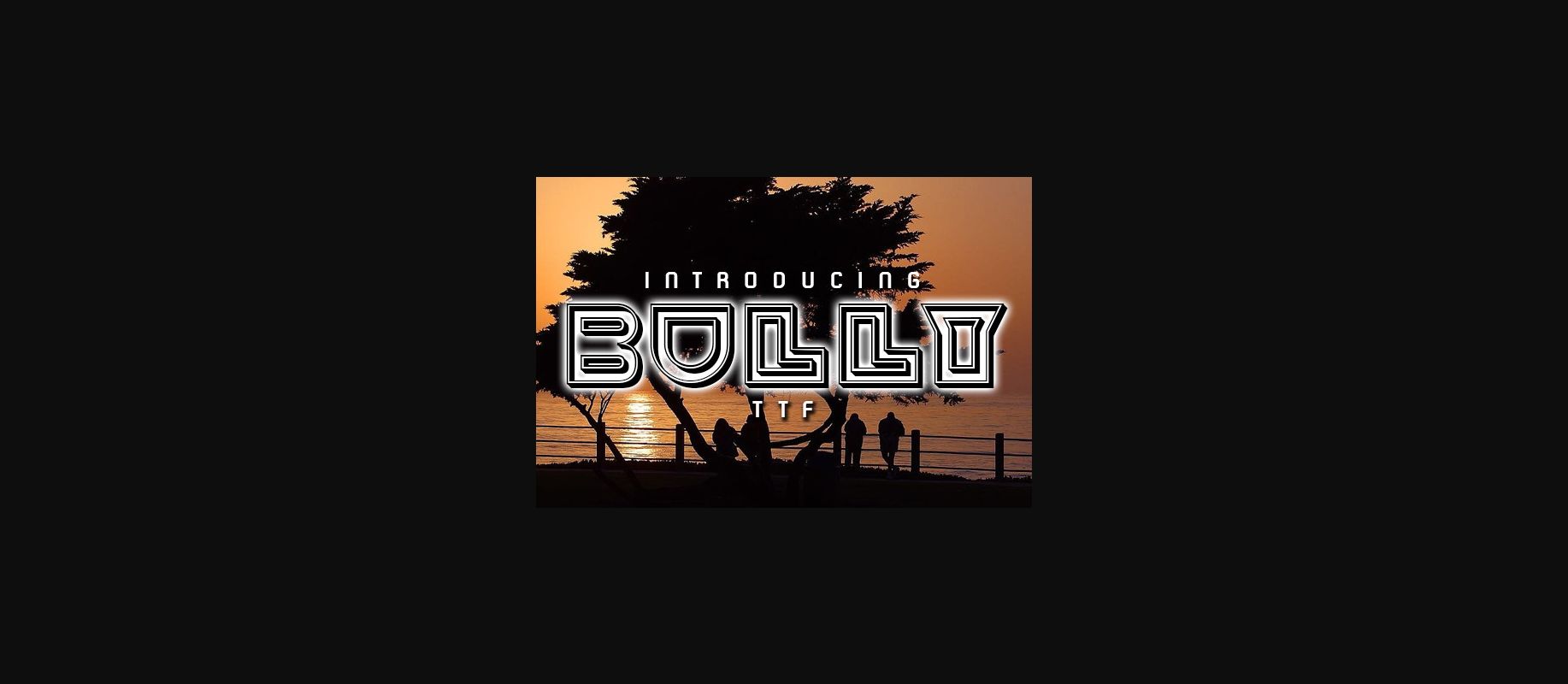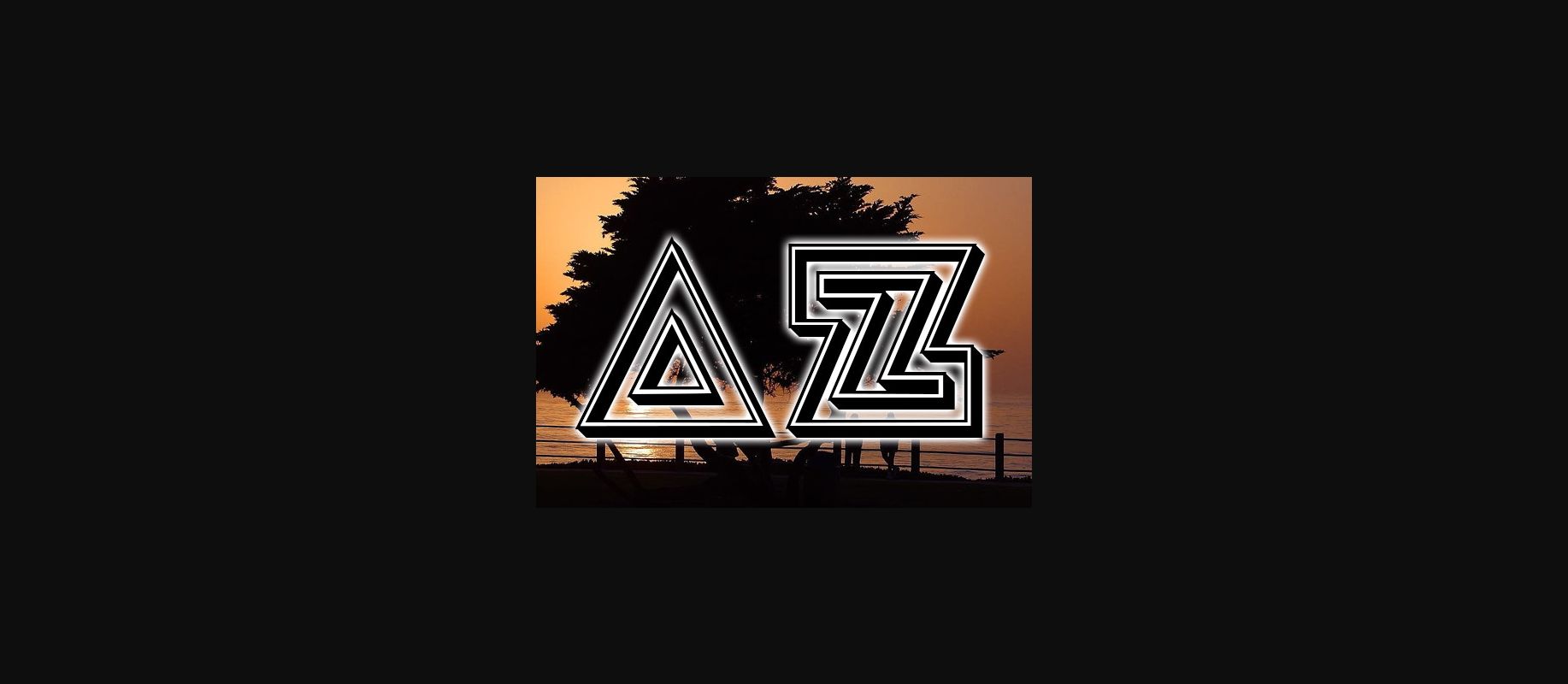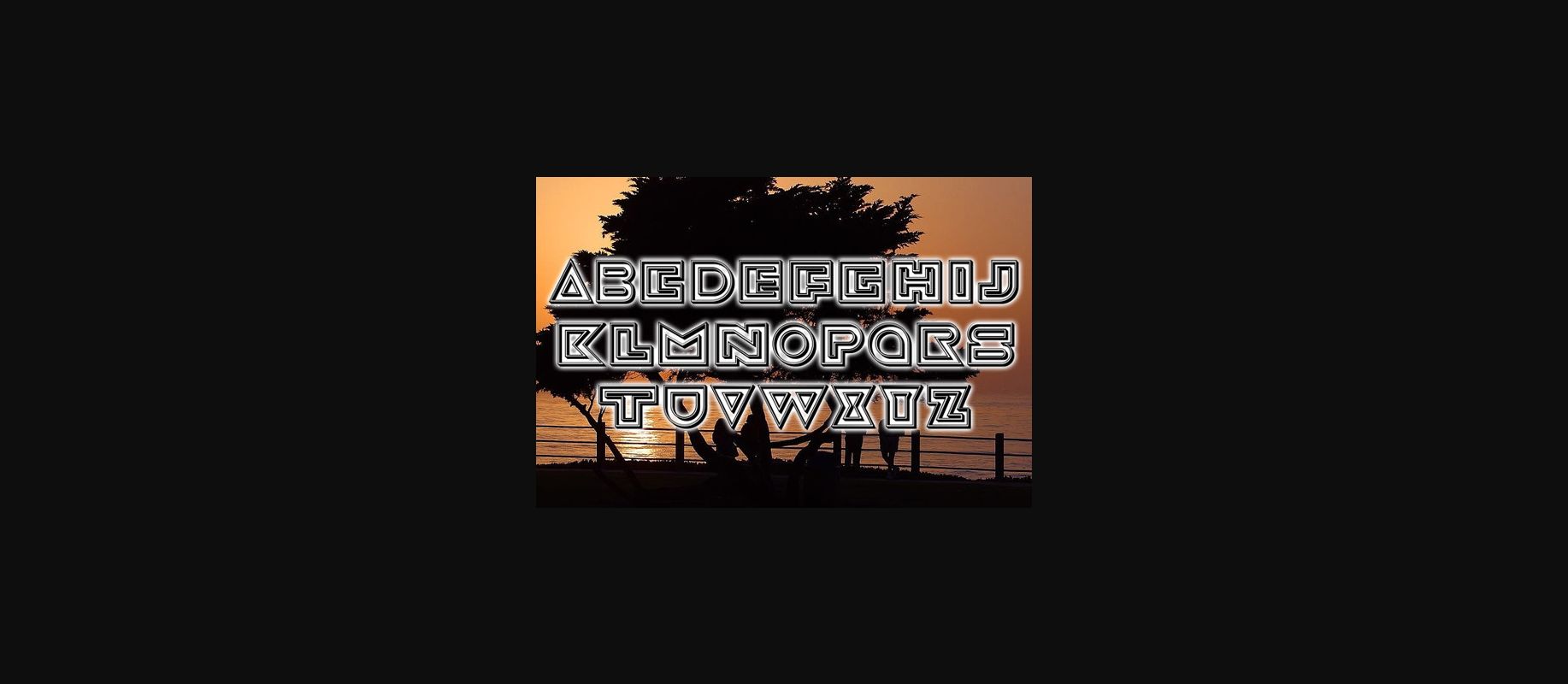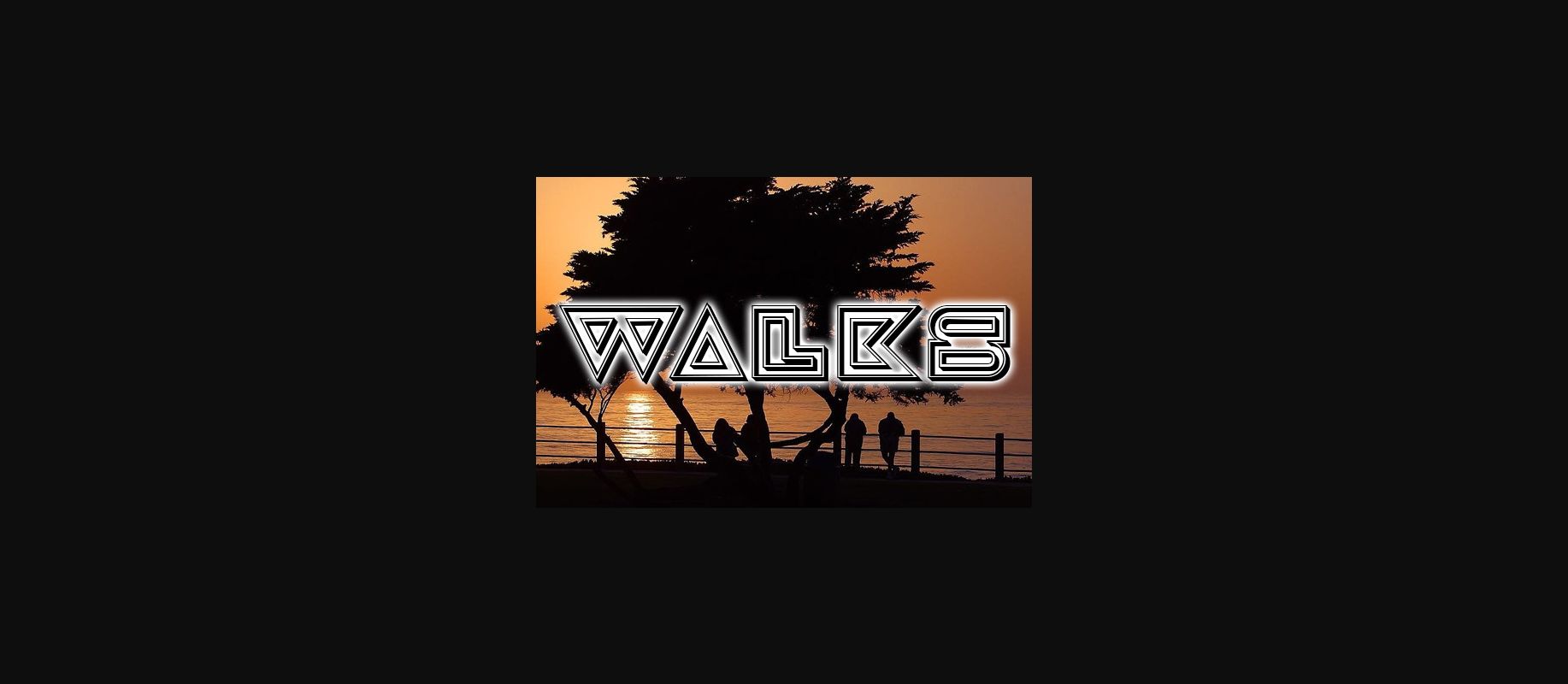
HomeDecorative FontsBully Font Decorative Fonts Bully Font FacebookXPinterestWhatsApp 1 of 6 ... Bully Font Poster 2... Bully Font Poster 3... Bully Font Poster 4... Bully Font Poster 5... Bully Font Poster 6... About Bully Font Bully is an awesome squarish display font that will look stunning on any of your designs. Use this font on posters, flyers, and t-shirts. DOWNLOAD NOW People also explored Palcer Font Gloreno Font Yummy Scary Font Sunset Bella Canvas 3001 T Shirt Mockup I Heart Sketches Font Anticed Font Risheil Font Steelfish Rounded Bloodlust Font 397 0 TagsBullyBully Font Previous articleColoured Pencils FontNext articleThe Mother Font LEAVE A REPLY Cancel reply Comment: Please enter your comment! Name:* Please enter your name here Email:* You have entered an incorrect email address! Please enter your email address here Website: Save my name, email, and website in this browser for the next time I comment. Personal Use Free Masha Song Personal Use Free Read more about this font Zeshane Personal Use Free Read more about this font Abuget Free Script Personal Use Free Read more about this font Cline Personal Use Free Read more about this font BLOG Best Fonts for T-Shirt Design – Top 2025 Picks In 2025, t-shirt design has become more than just fashion—it's a form of self-expression. Whether you're... Top 10 Handwritten Fonts That Elevate Your Designs Free vs Paid Fonts: Why Investing in Premium Fonts Is Worth It How to Install and Use Fonts on Windows, macOS, and Web Projects